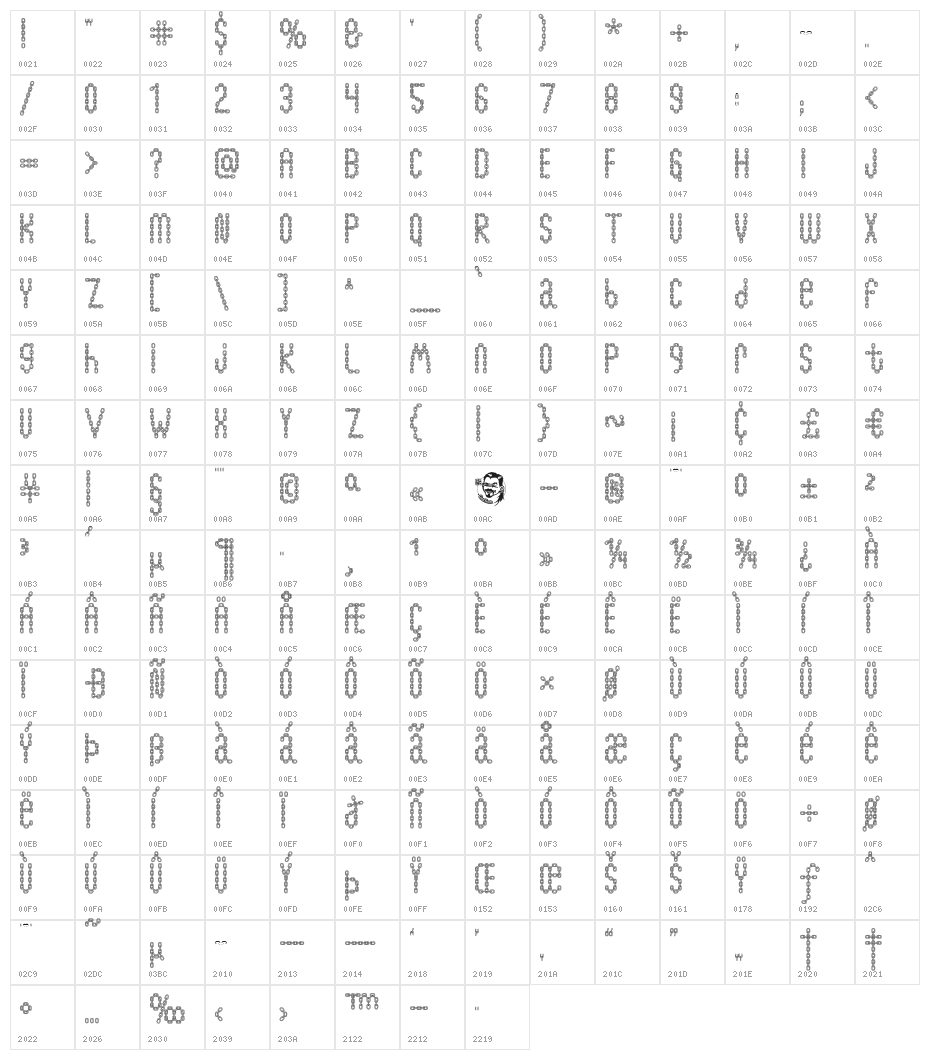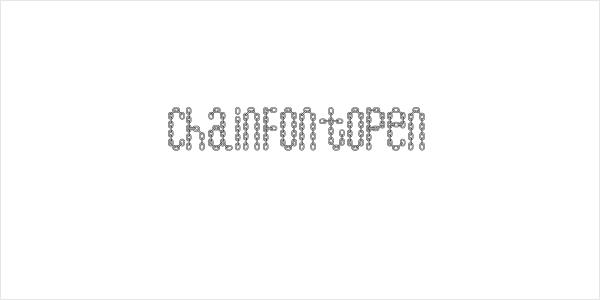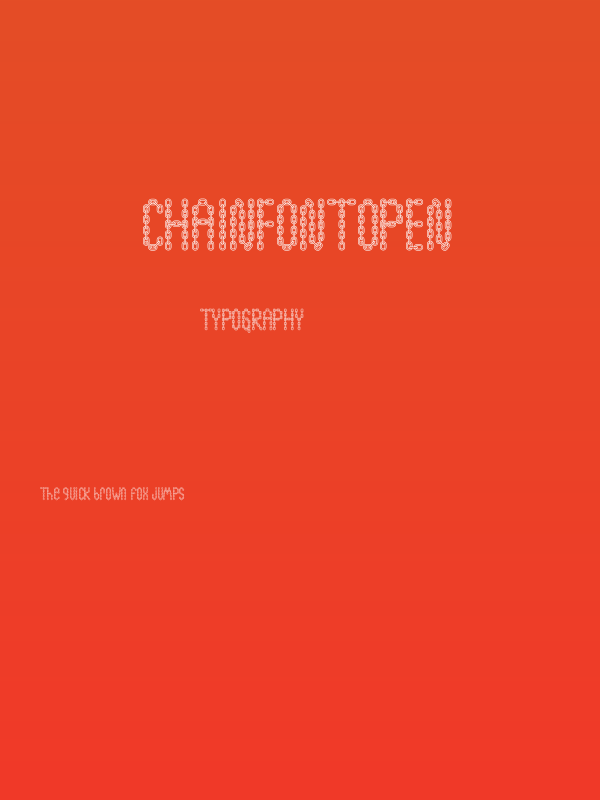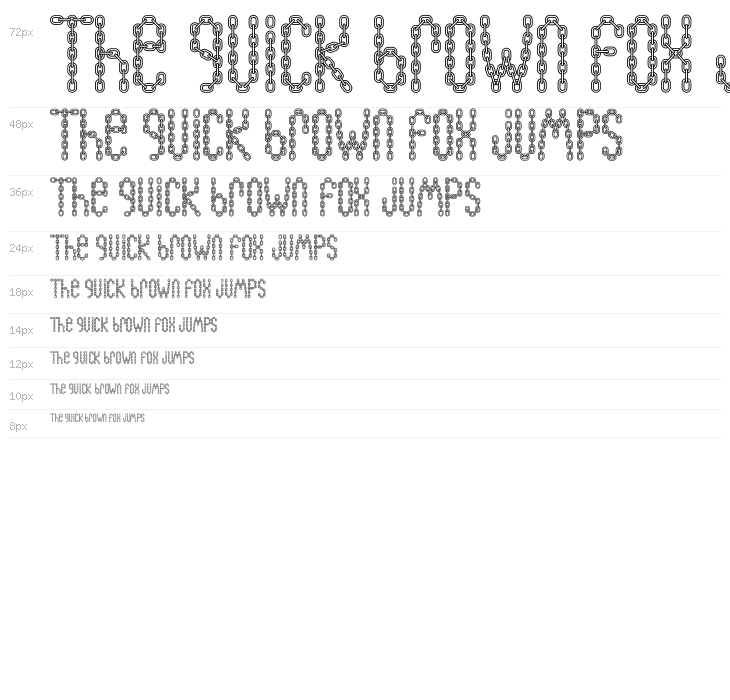
ChainFontOpen Font
ChainFontOpen Description
This font features a unique and bold design where each character is crafted to resemble a chain link structure. The letters and numbers are composed of interconnected links, giving a three-dimensional and industrial feel. The design is consistent across uppercase, lowercase, and numerical characters, maintaining a cohesive look. The special characters also follow this chain motif, adding to the overall thematic unity. This font stands out with its decorative and eye-catching style, making it ideal for projects that require a strong visual impact.
| Proposed Projects | Ideal for branding, logos, posters, and any design project that requires a strong, industrial aesthetic. |